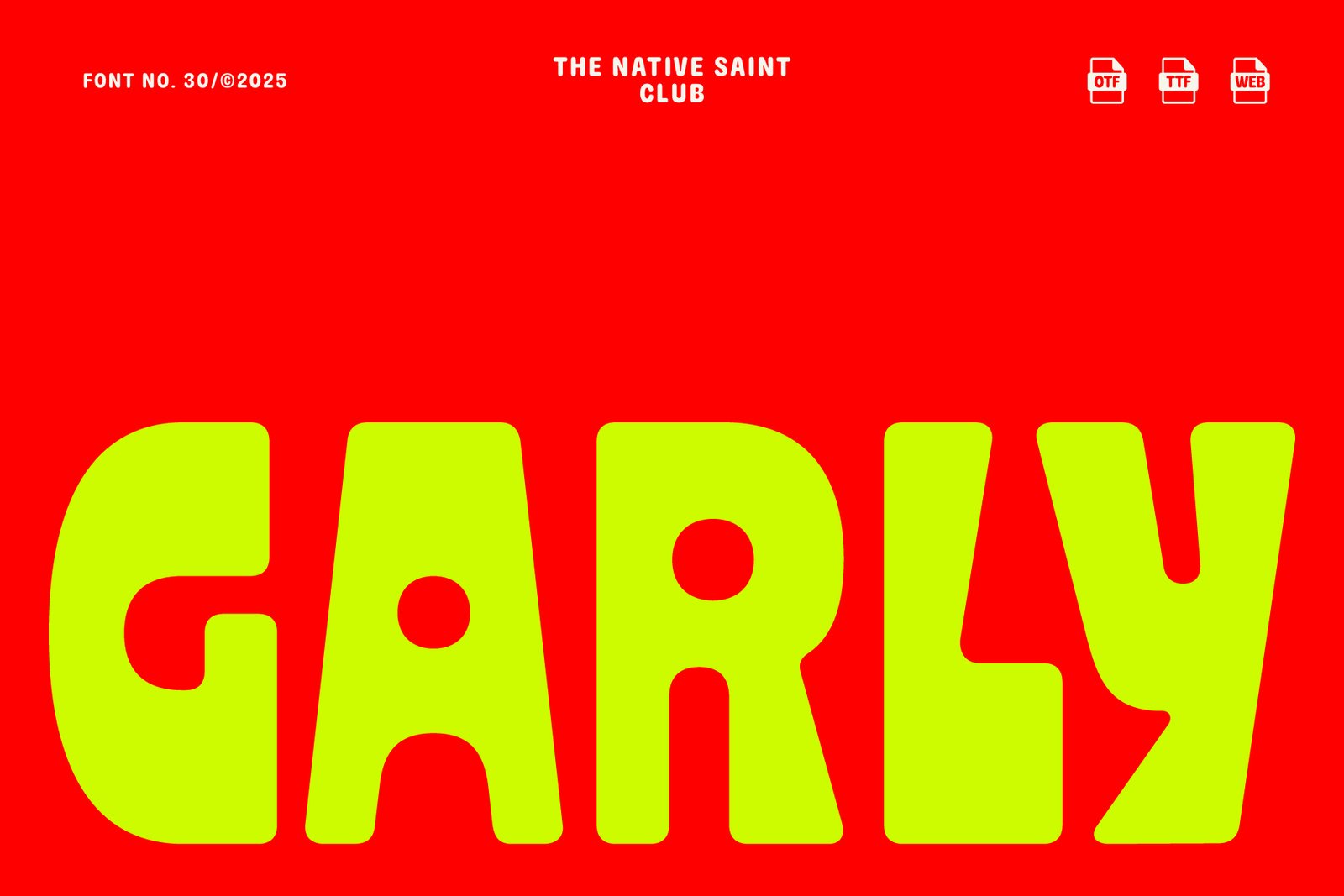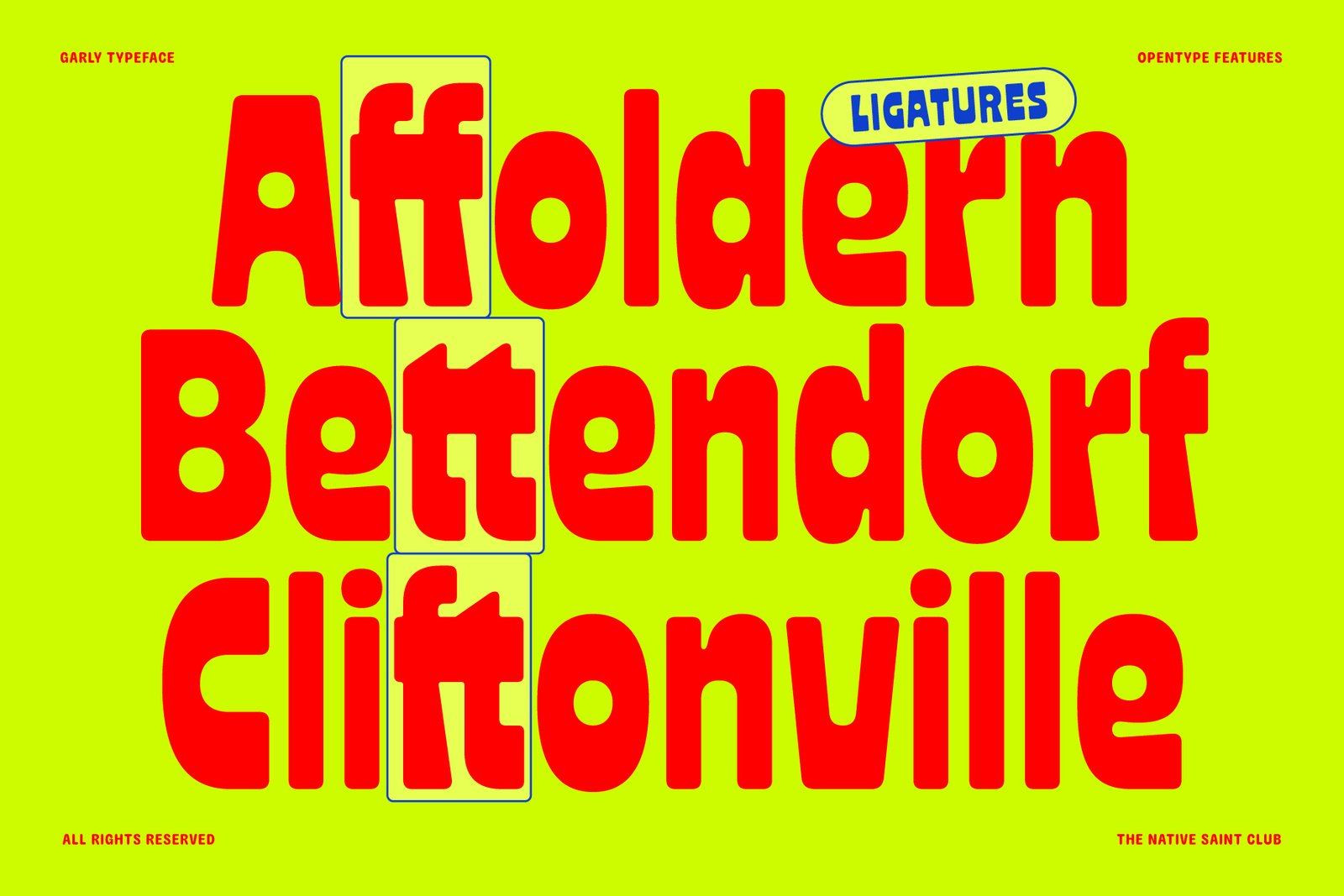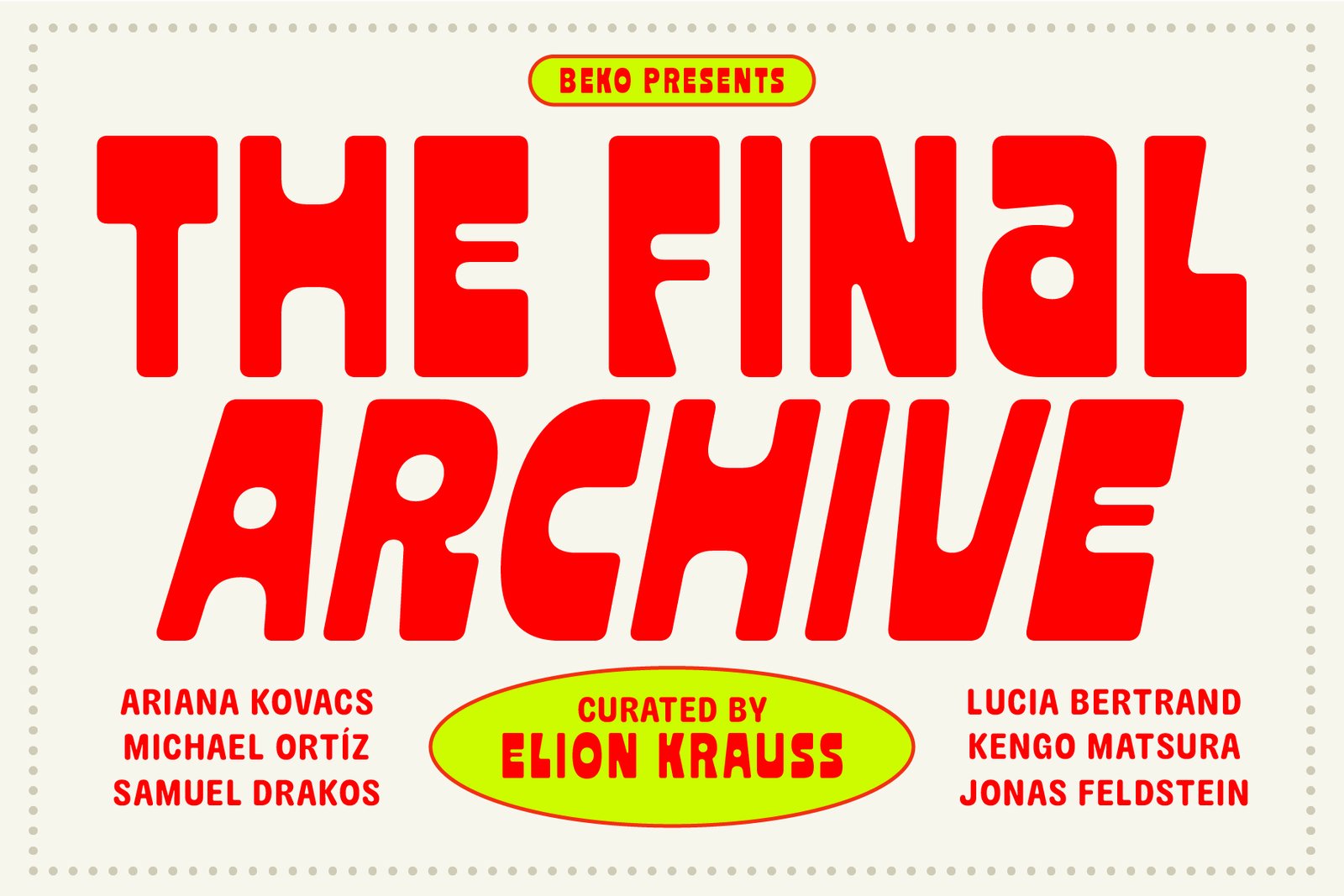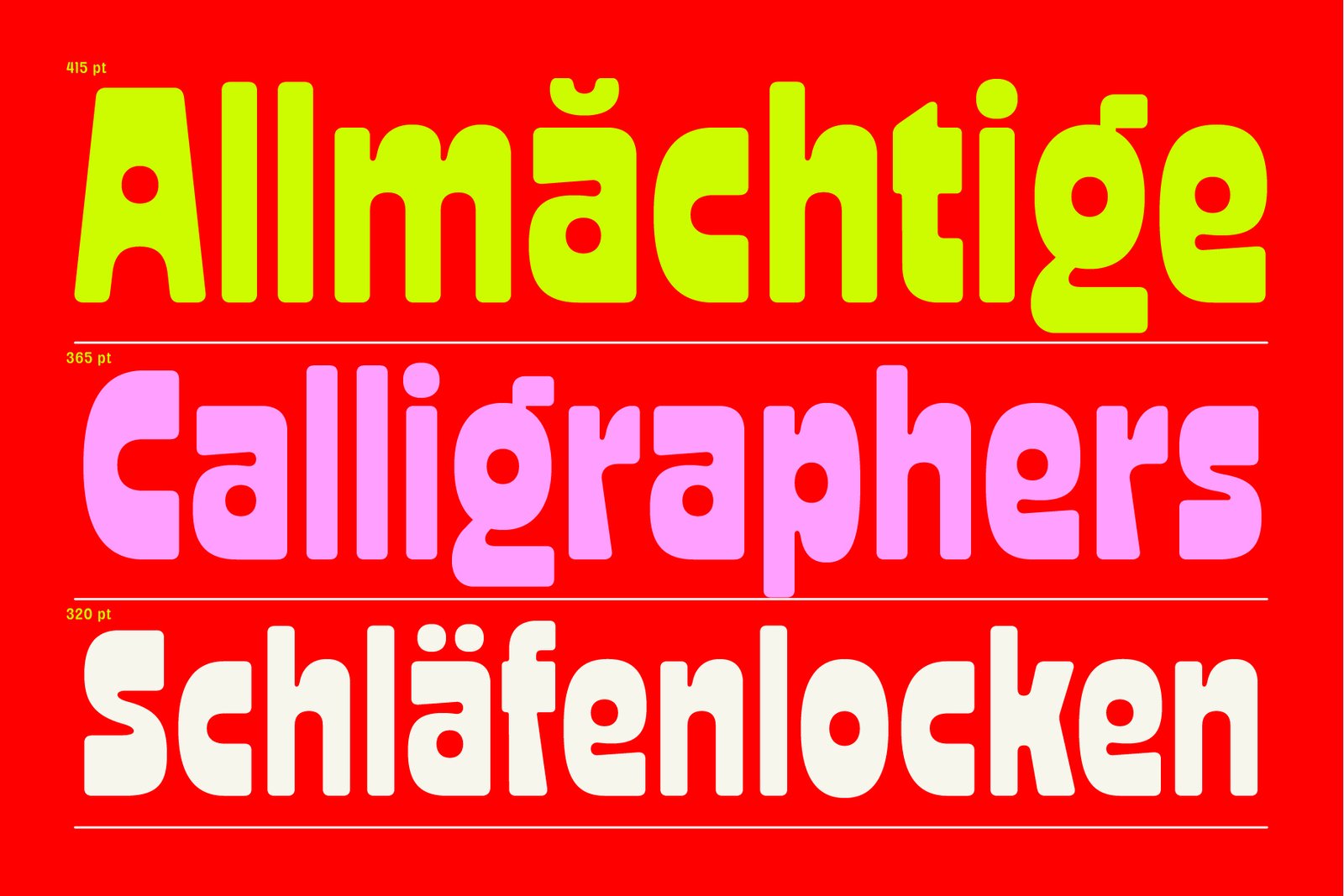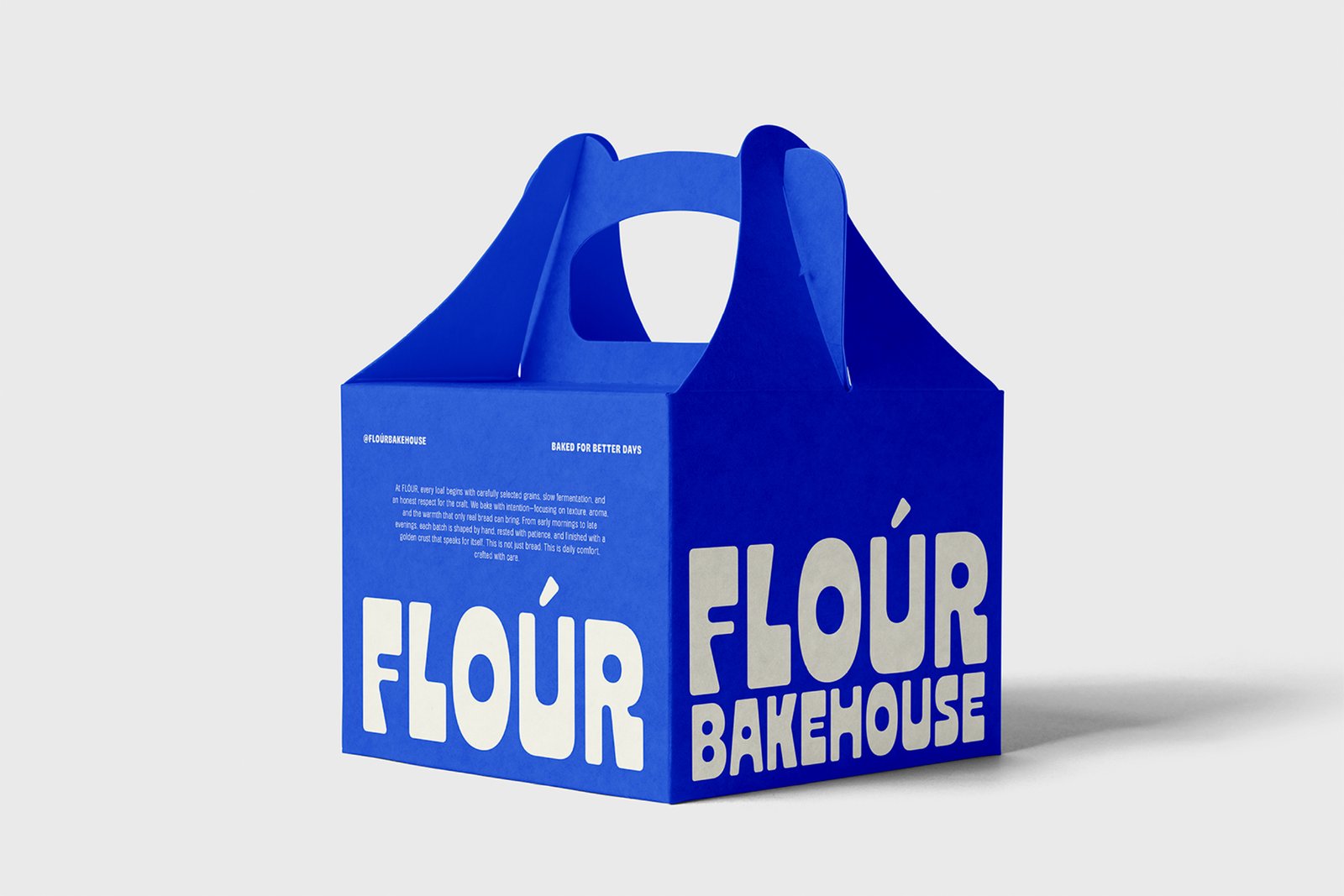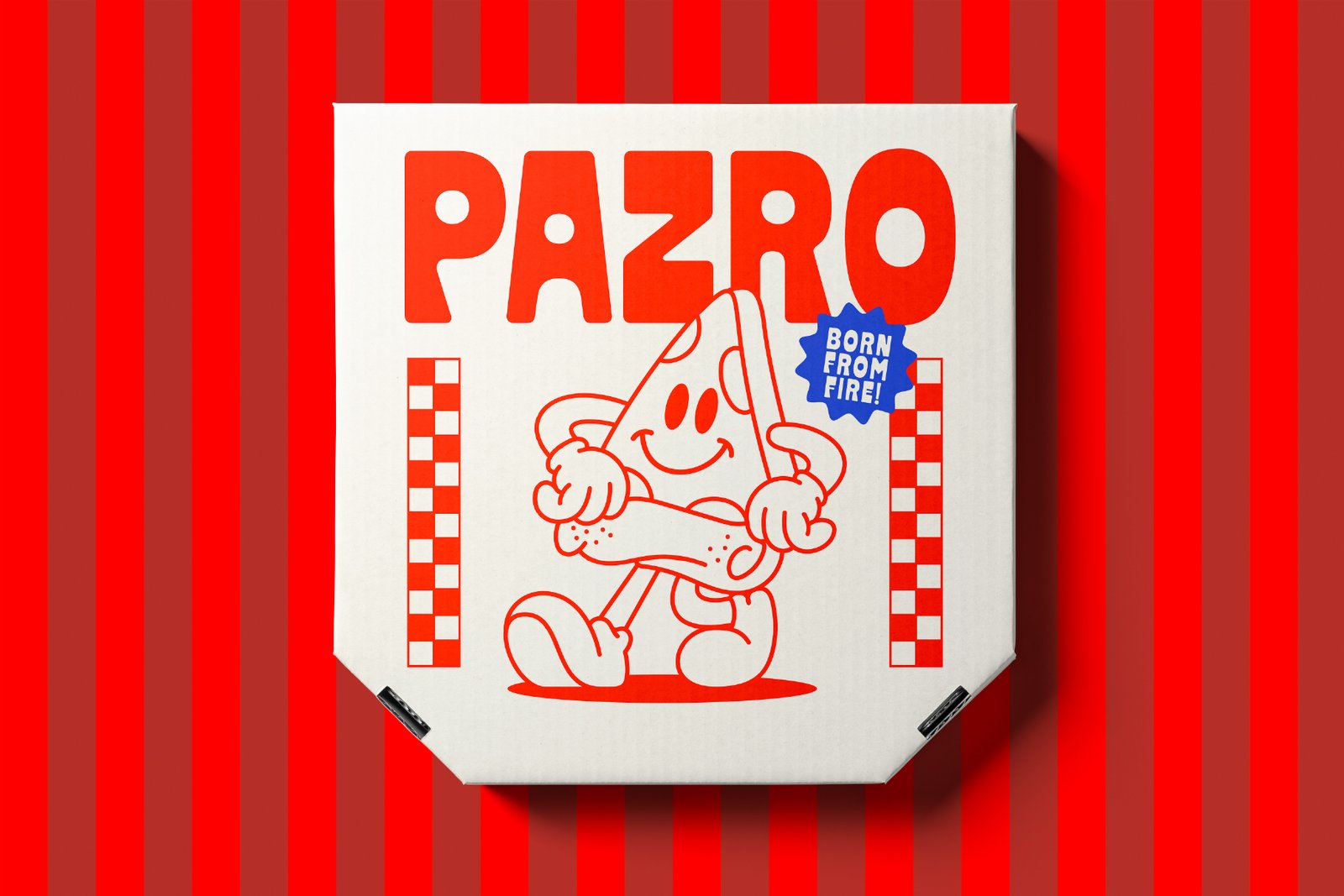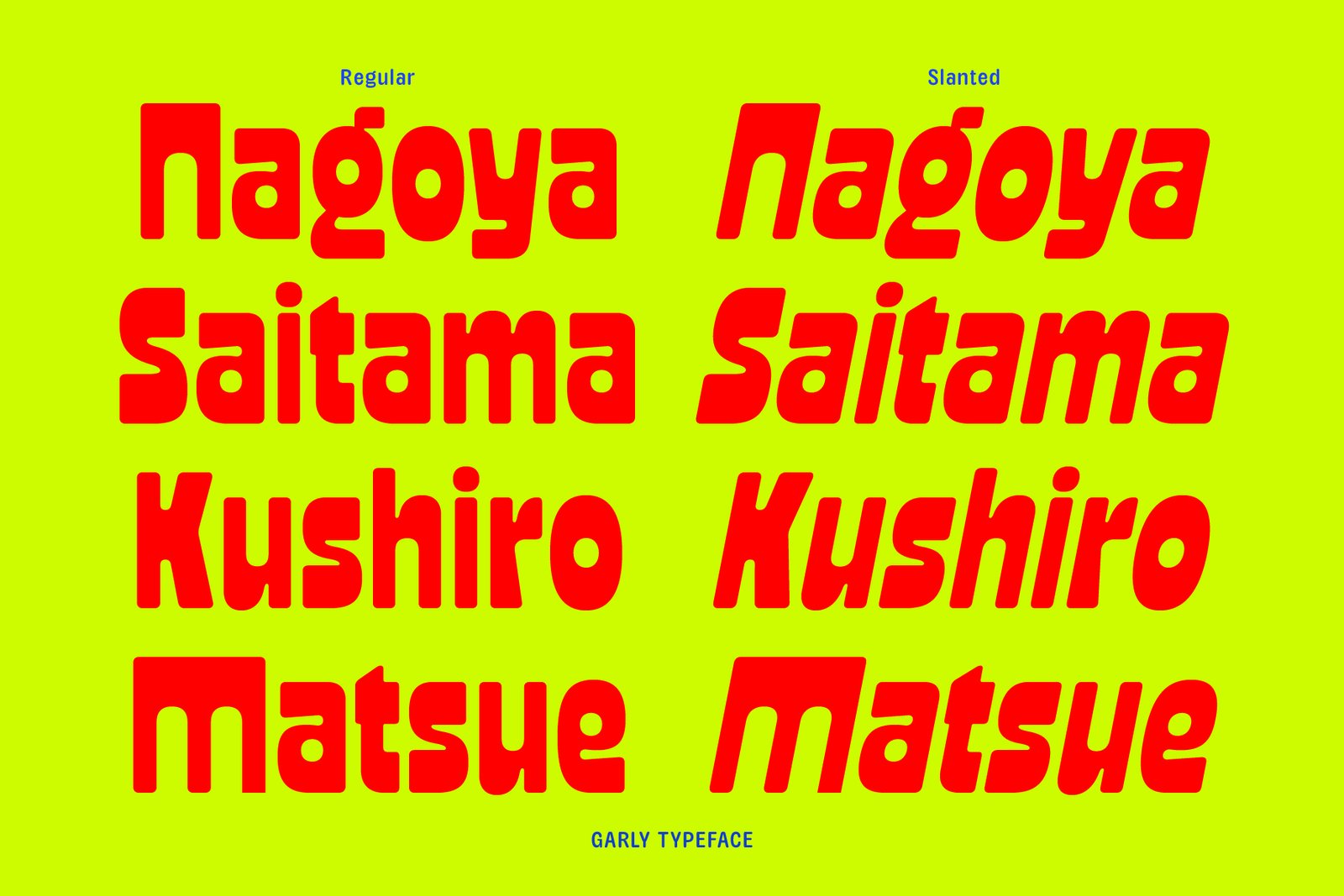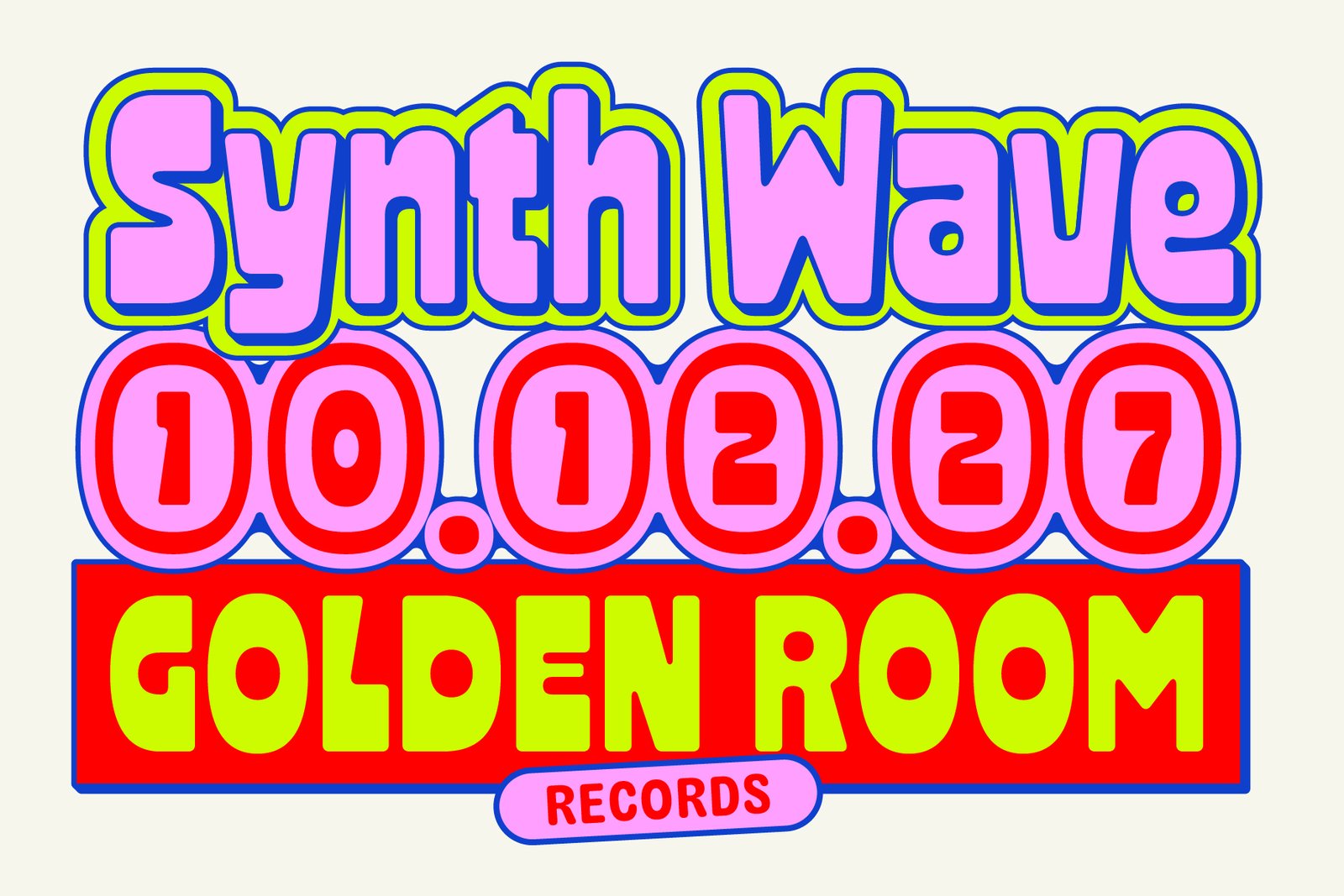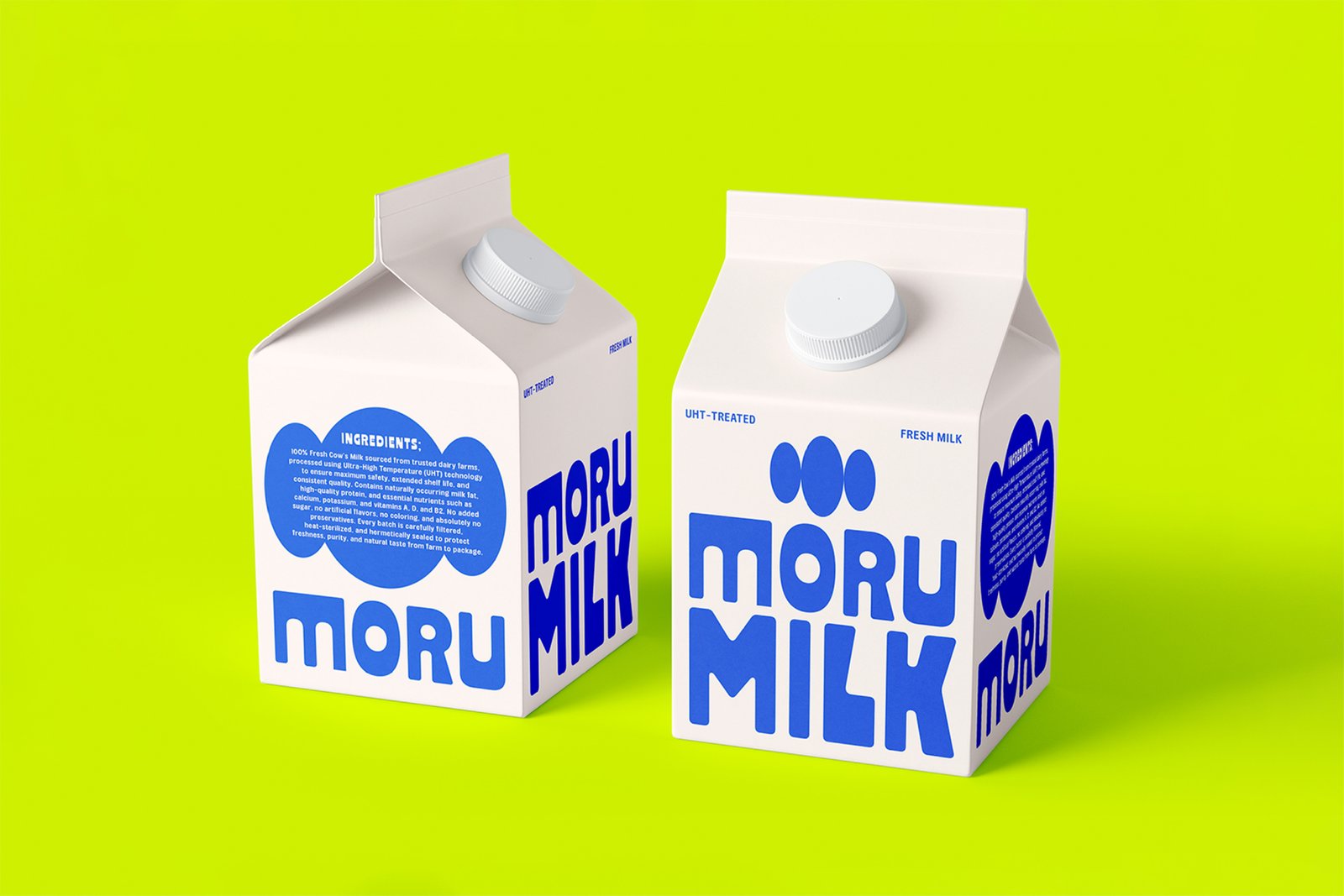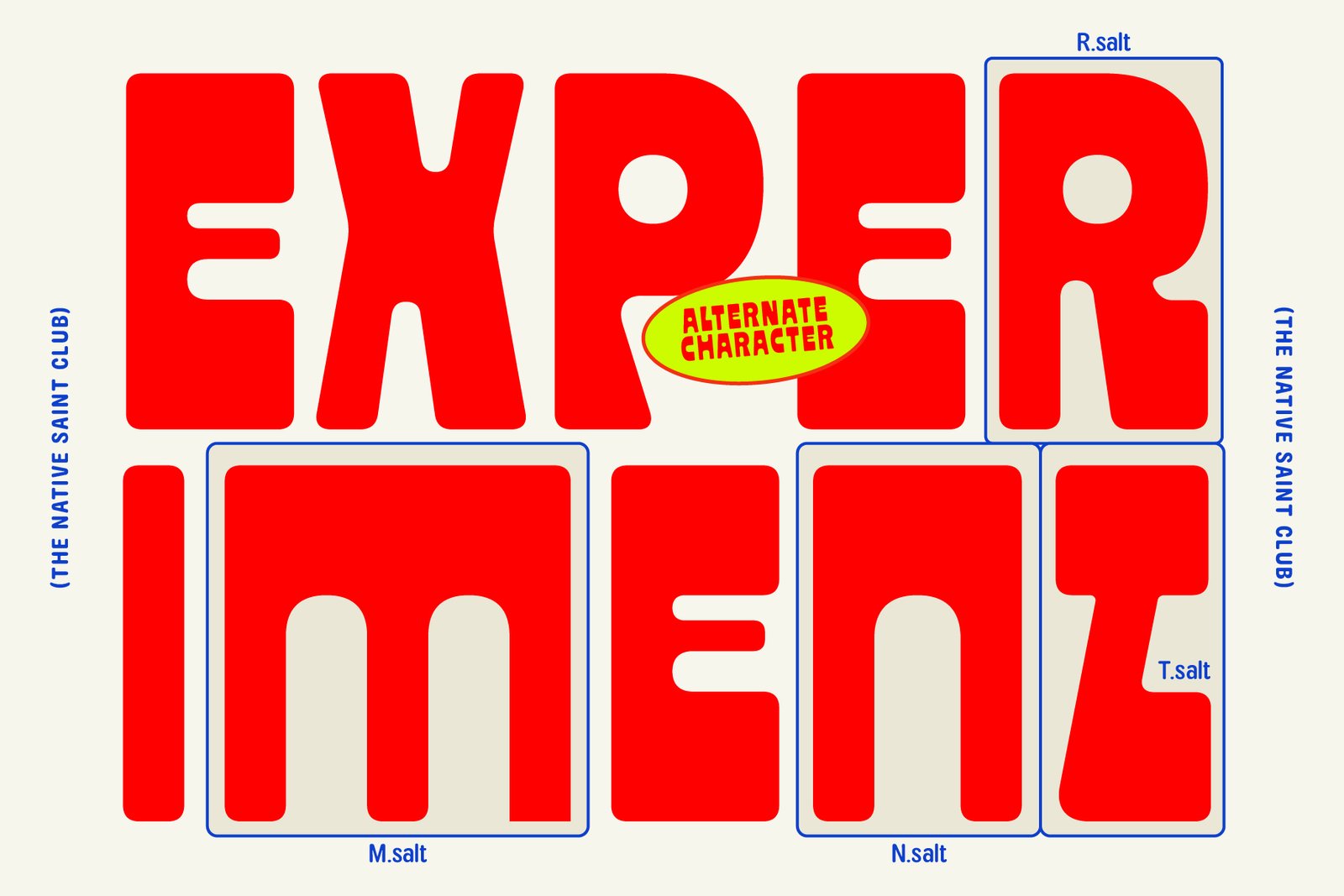
Garly Bold Display Typeface
TNSC GARLY is a bold display typeface with rounded and playful letterforms. It is an upgraded version of Grand Mottley Sans, refined with softer edges and improved character shapes for better balance and readability. The overall look is modern, friendly, and versatile, making it suitable for a wide range of design and visual projects. It comes in two styles: Regular and Slanted.